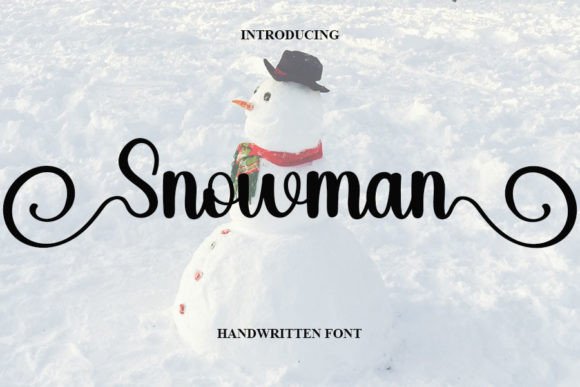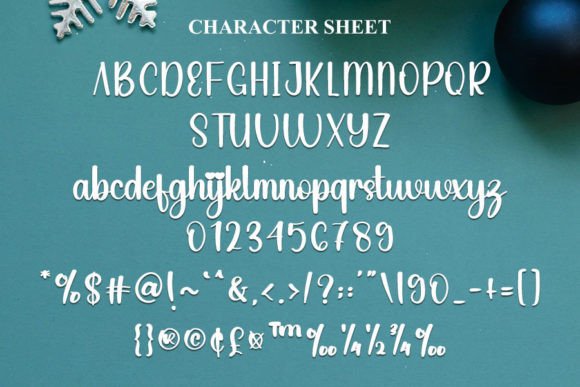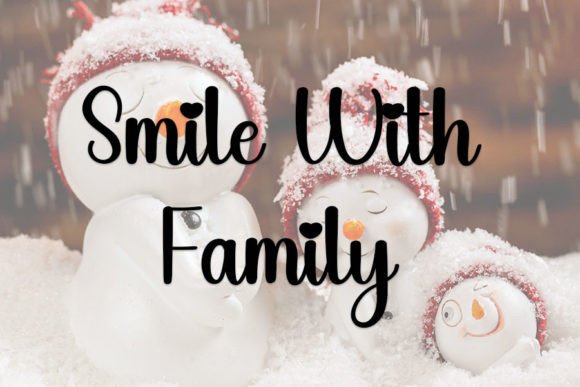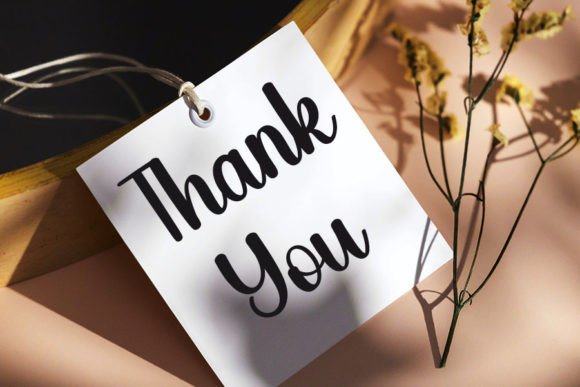
About Snowman Font
When you download Snowman font, you unlock a charming and versatile script that brings warmth, personality, and creativity to your projects.
A Friendly Handwritten Style
Snowman font stands out with its approachable and natural handwritten look. The font captures the essence of casual handwriting, making it perfect for designs that need a personal, heartfelt touch. Whether you are working on greeting cards, invitations, or social media graphics, Snowman font adds a welcoming vibe that resonates with audiences.
Versatile for Various Creative Projects
This font’s balanced strokes and smooth curves make it ideal for a wide range of applications. From branding and logos to posters and packaging, Snowmanfont effortlessly adapts to different design needs. It’s also great for digital projects like websites and blogs, as well as print materials such as flyers, newsletters, and stationery.
Bring Your Designs to Life
Its readability combined with friendly charm allows you to craft compelling and attractive visual content. Whether you’re a professional designer or a DIY enthusiast, this font will enhance your work with elegance and personality.